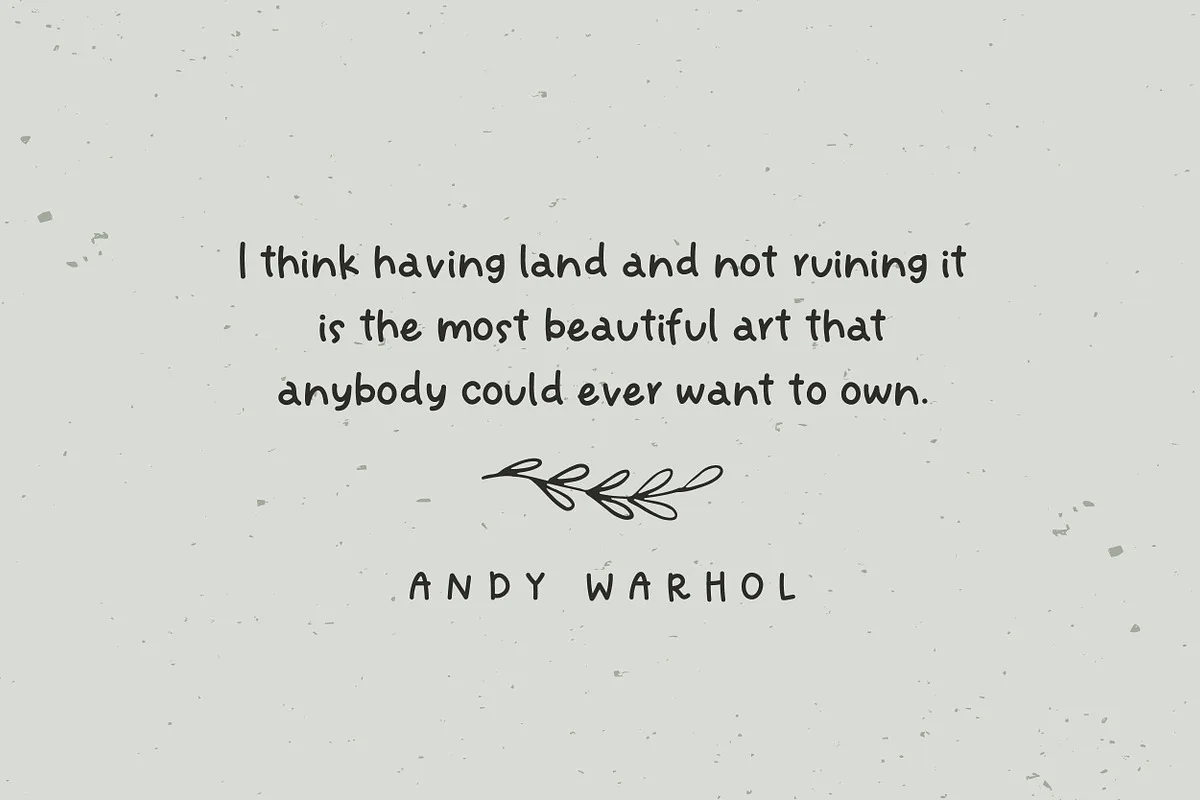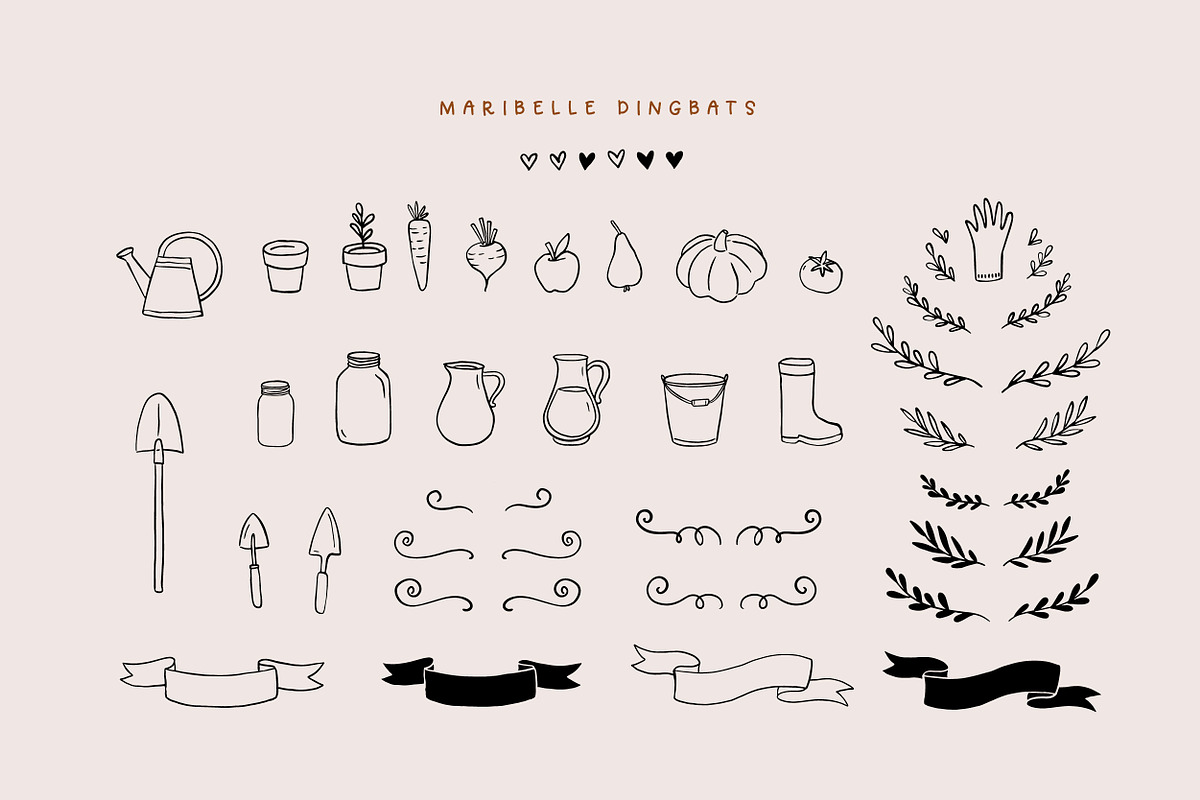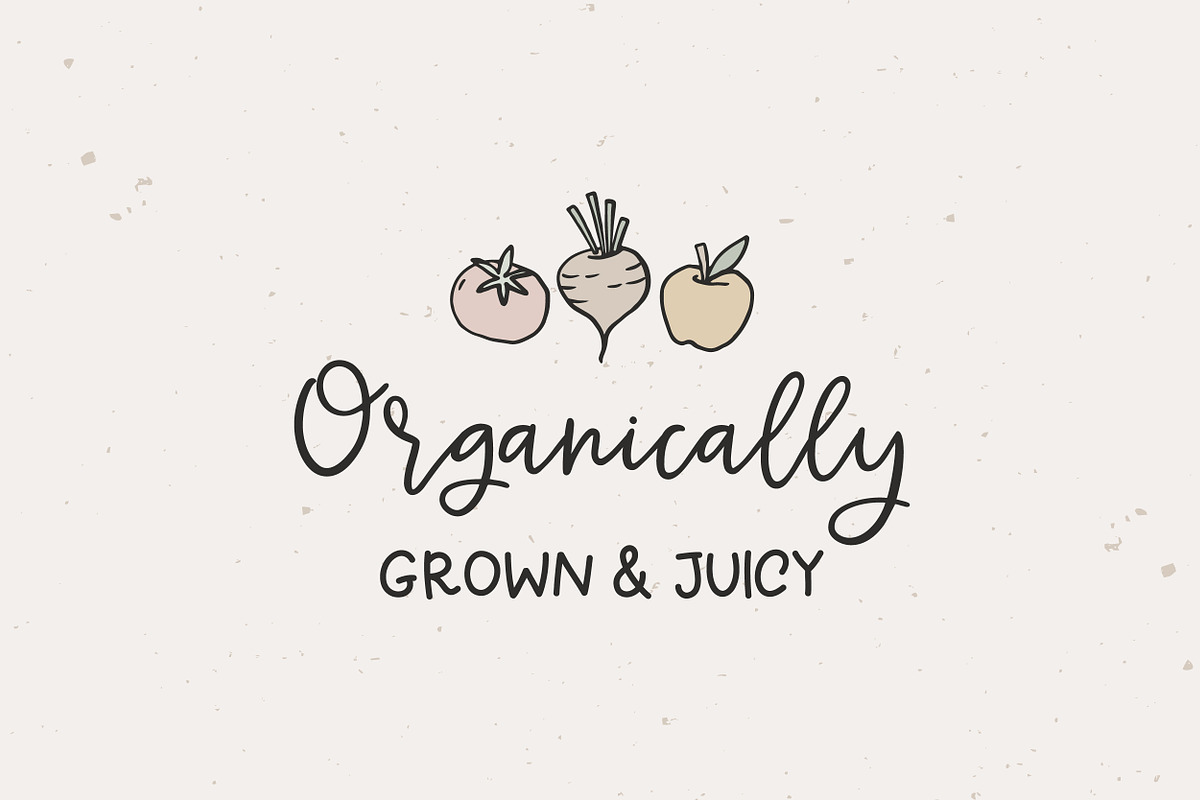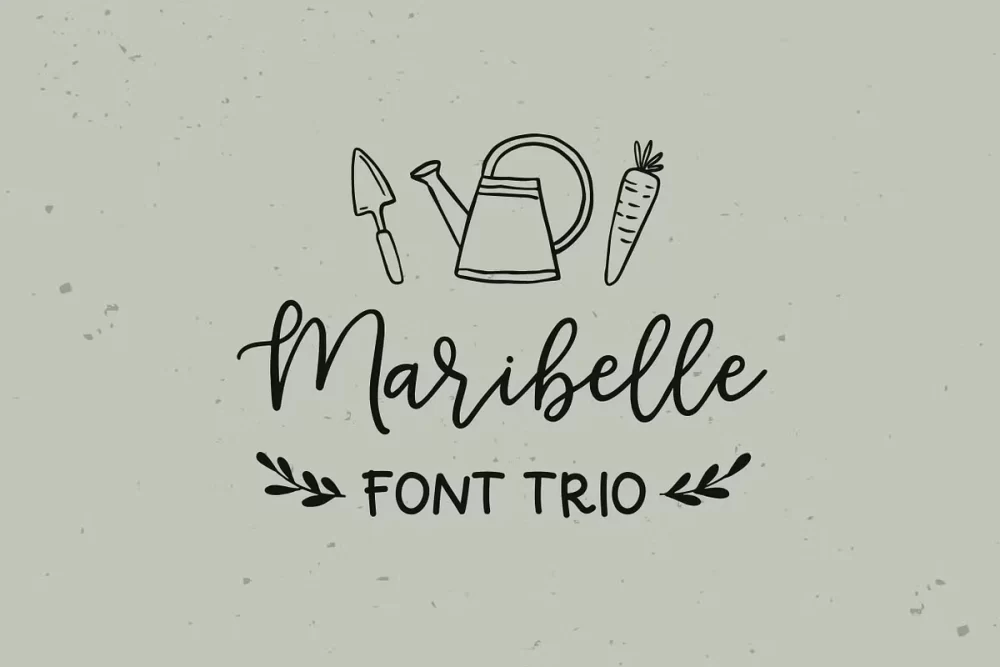
Introducing Maribelle – hand-drawn farm-loving font that will give you a hand in growing these organic tomatoes of yours. Perfect for branding, logos, packaging, quotes for instagram posts, wall art or greeting cards.
Suitable for short and sweet quotes, as well as longer meaningful paragraphs. Designed and kerned with care and love to make using it a breeze.